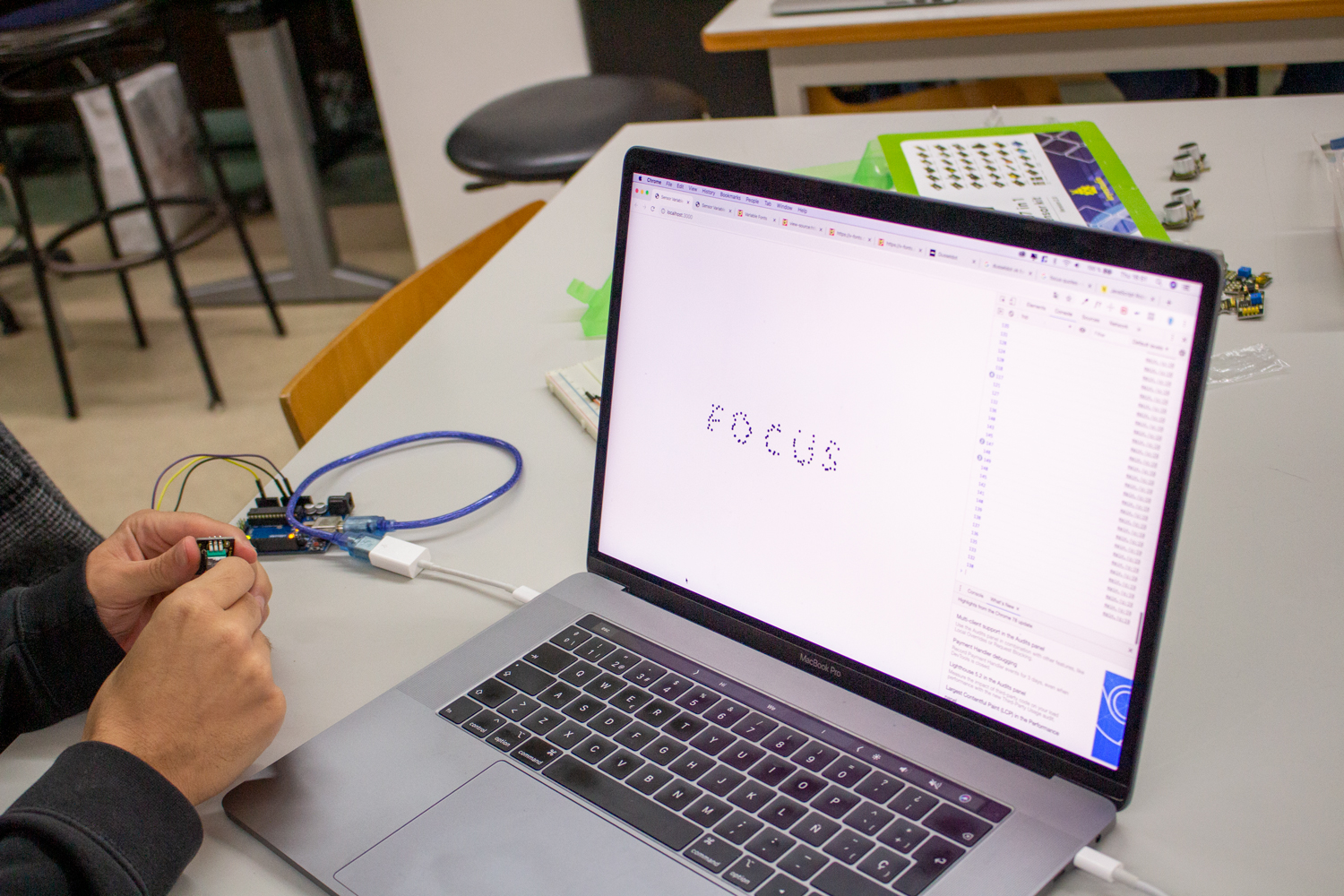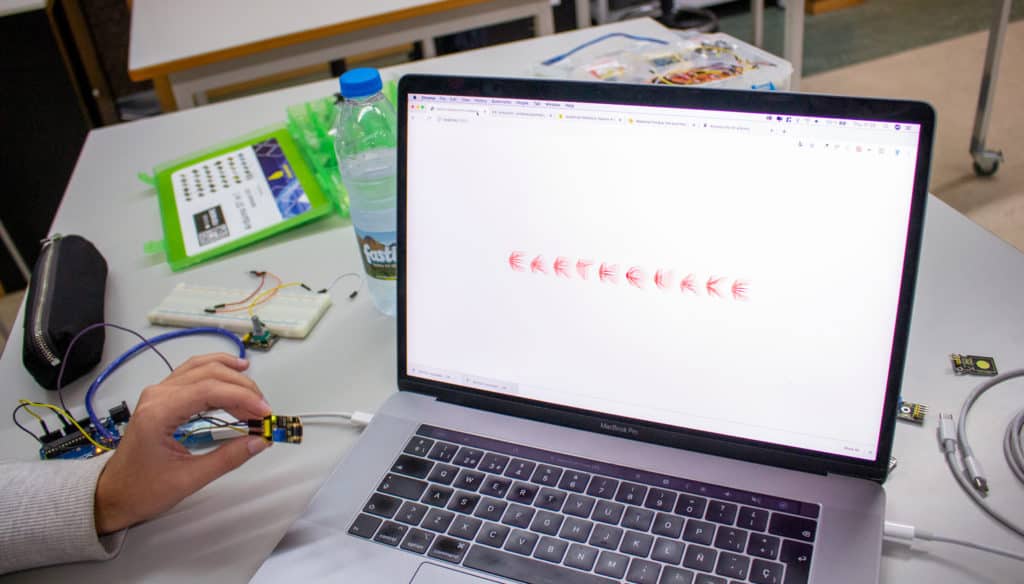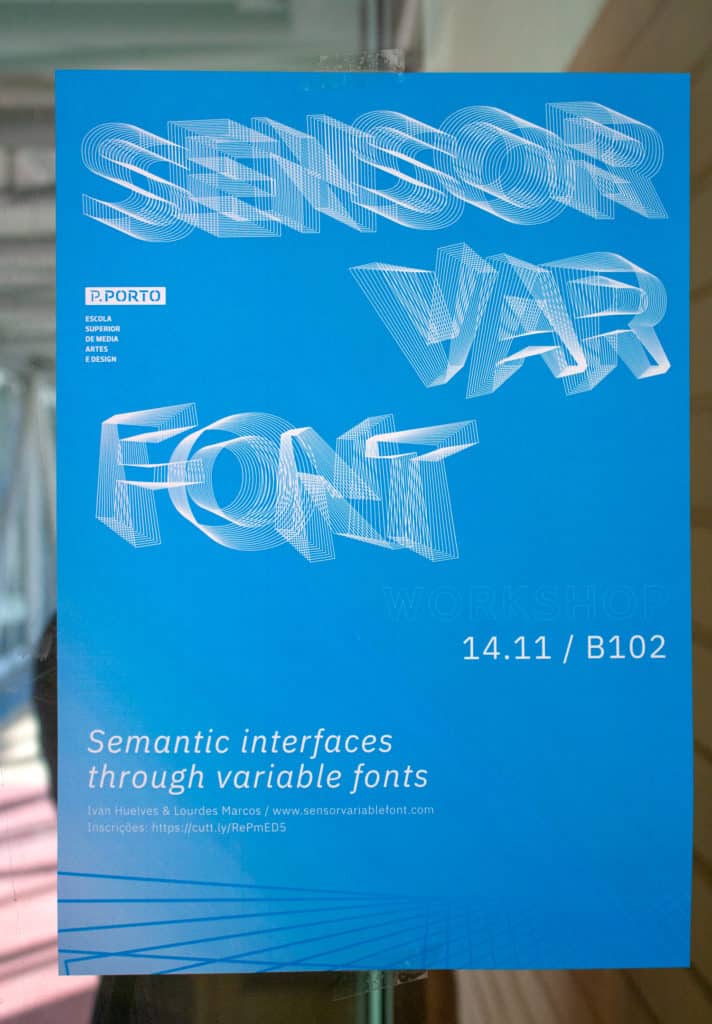
Sensor Variable Font Workshop – Politécnico do Porto
In the framework of an Erasmus Mobility Agreement with the Escola Superior de Media Artes e Design (ESMAD) of the Politécnico do Porto, I carried out with my colleague Lourdes Marco a workshop with students of the School of Design.
The purpose was to introduce them the possibilities of building semantic graphic interfaces through variable fonts and data collected by sensors. Moreover, we conducted a validation of the model in order to test its usefulness.
Here a video of some results. Firstly they used a potentiometer to focus or unfocus the font and secondly a vibration sensor to modify the value of the axes of the font.
Protoype designed by Jordi Basora and Núria Artigas